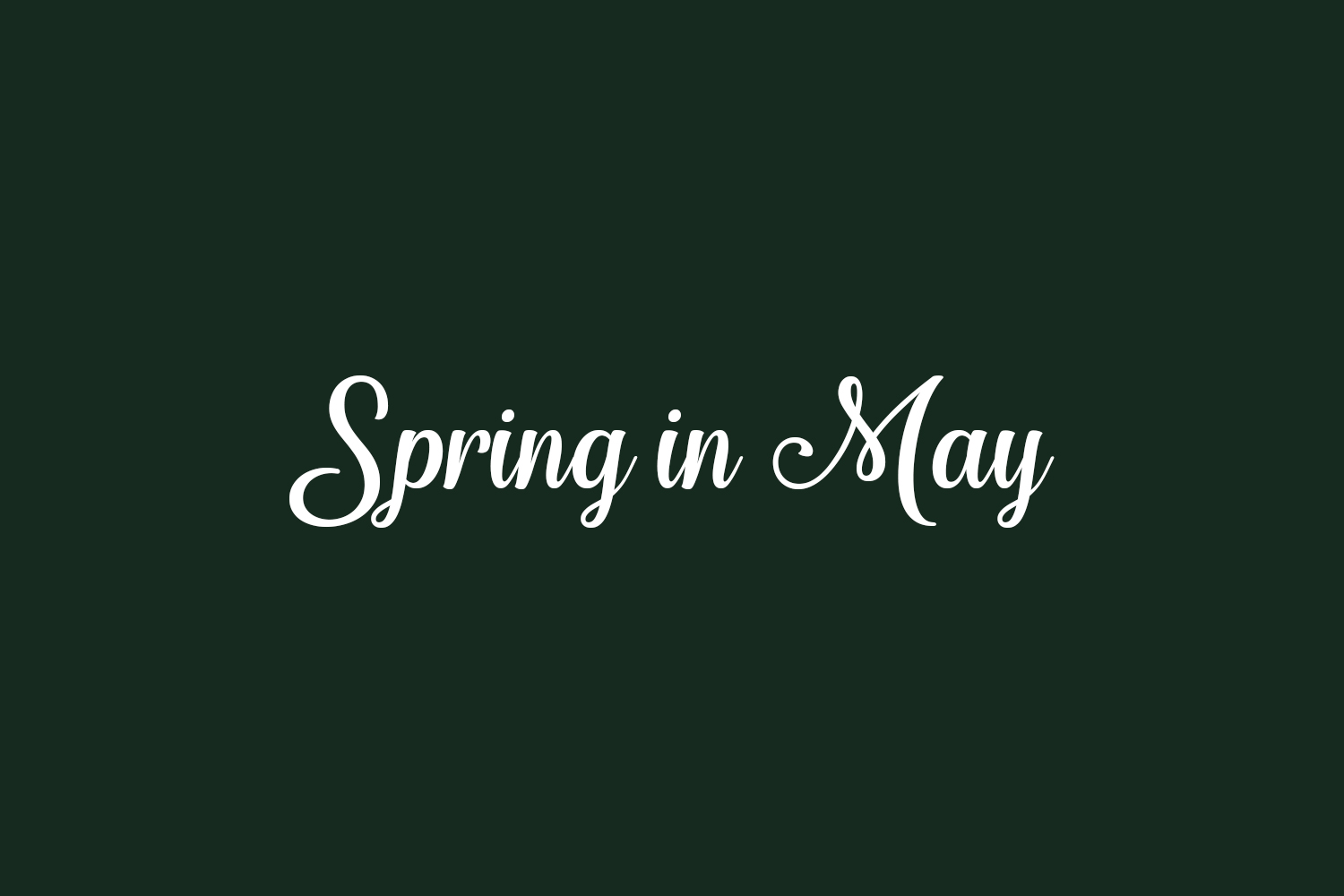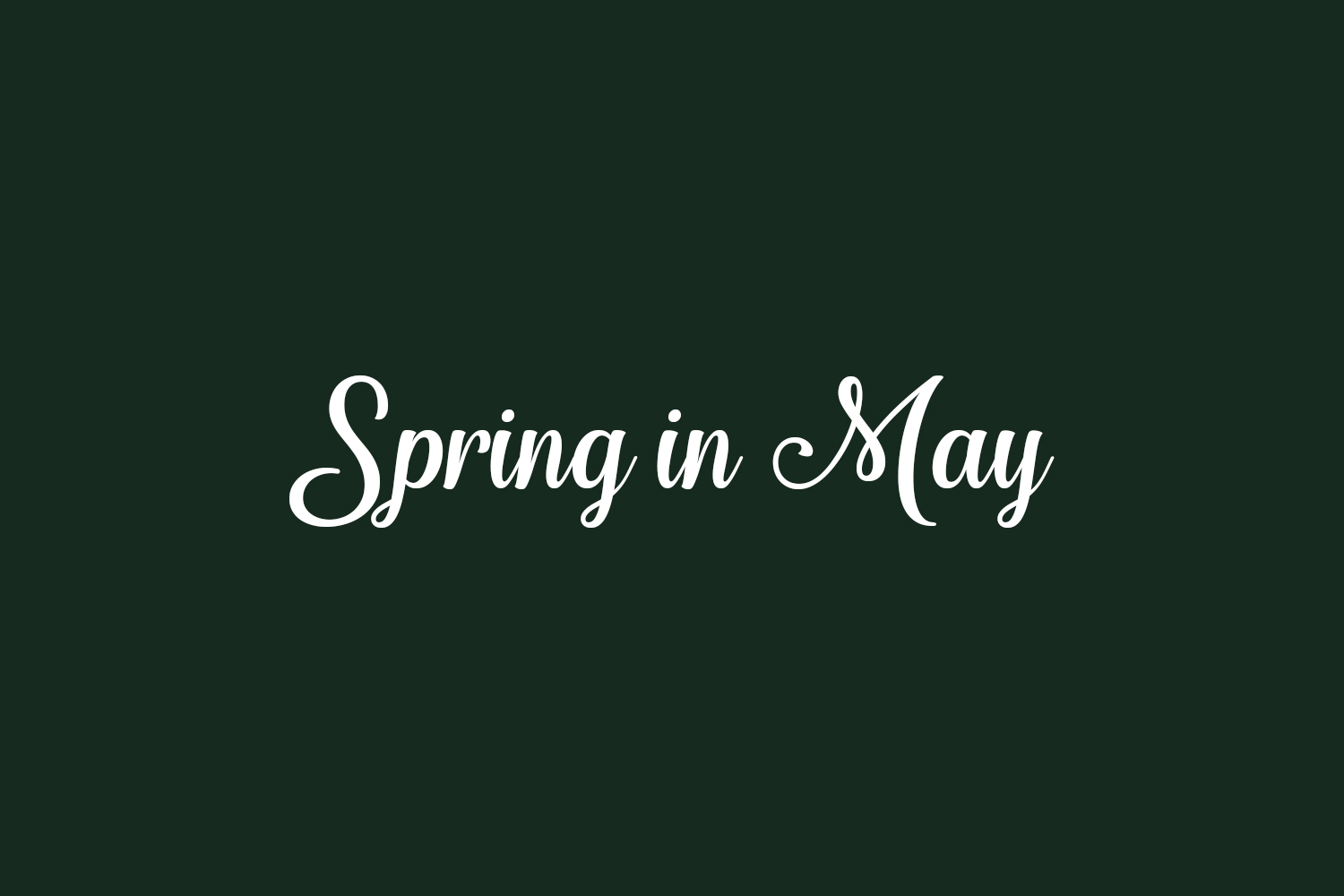
Spring in May Free Font is a stunning calligraphy typeface. Its elegant design makes a perfect choice for wedding invitations, lovely greeting cards, and any project that requires a fancy touch.was designed by Misti’s Fonts and is free for personal use only. Please purchase the full version for commercial use.